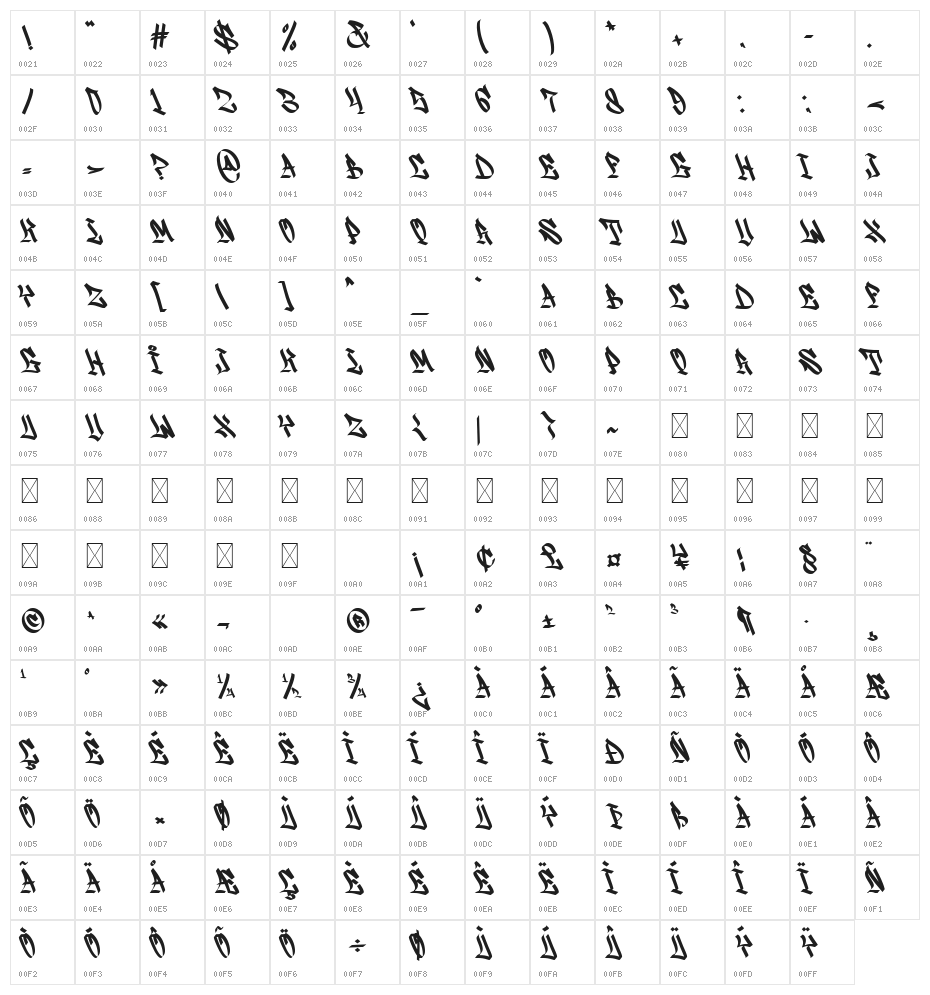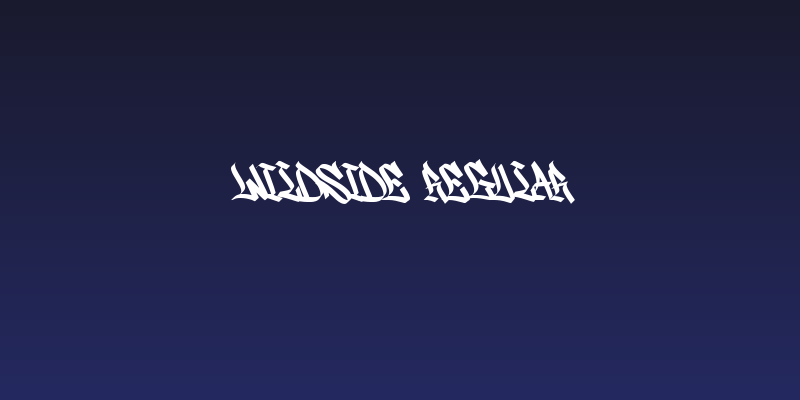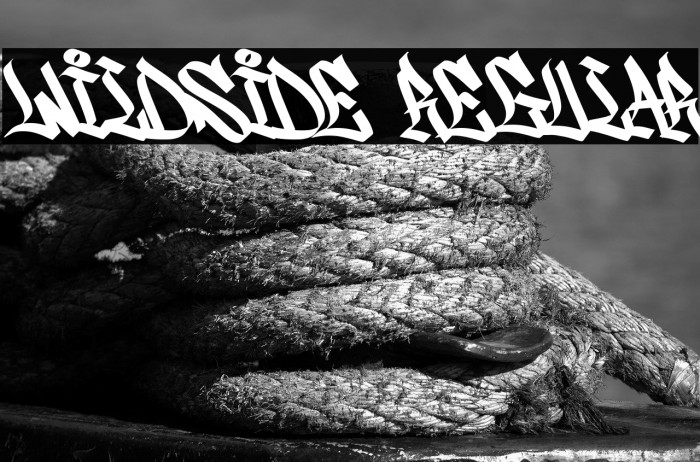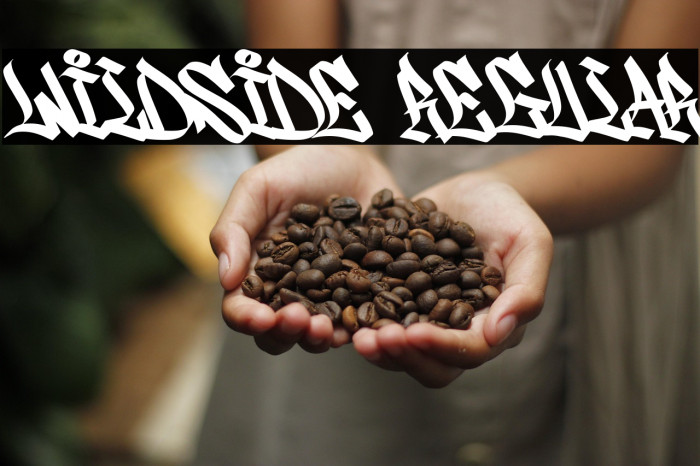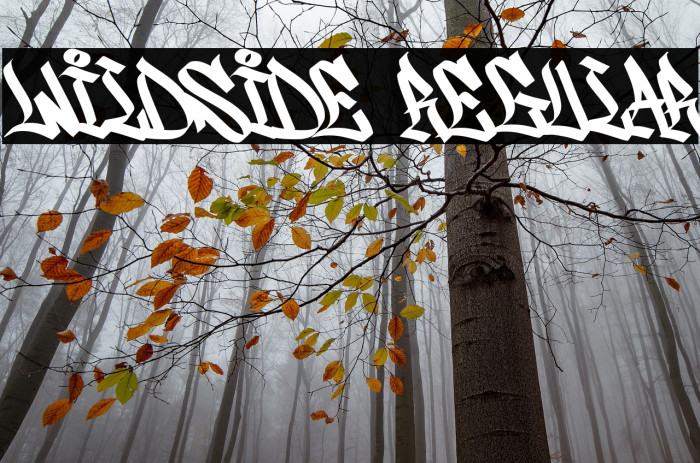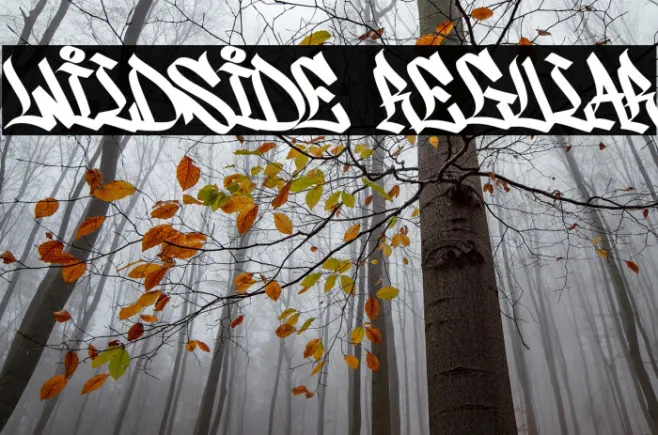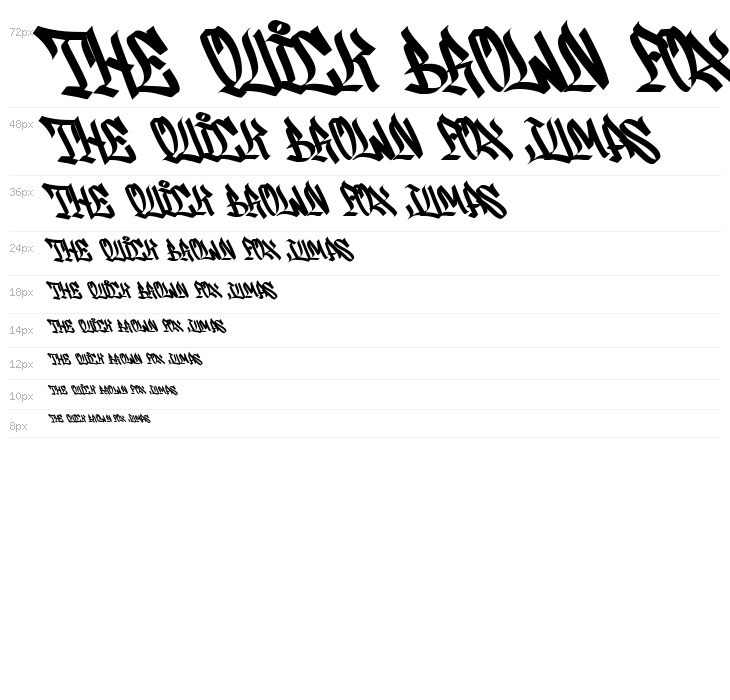
Wildside Regular Font
Wildside Regular Description
This font features a bold and dynamic style with sharp, angular lines and a graffiti-inspired aesthetic. The characters are highly stylized, with exaggerated curves and points that give them a sense of movement and energy. The uppercase and lowercase letters maintain a consistent design, while the numerals and special characters complement the overall look. The font's unique appearance makes it stand out, making it ideal for projects that require a strong visual impact.
| Proposed Projects | Perfect for street art designs, urban-themed posters, music album covers, and edgy branding projects. |